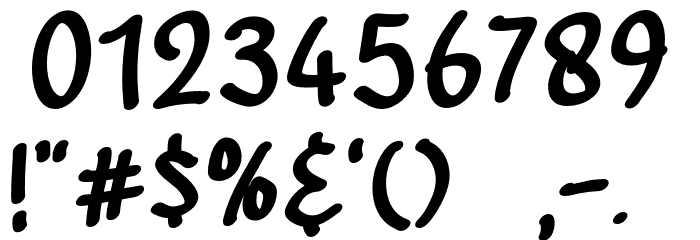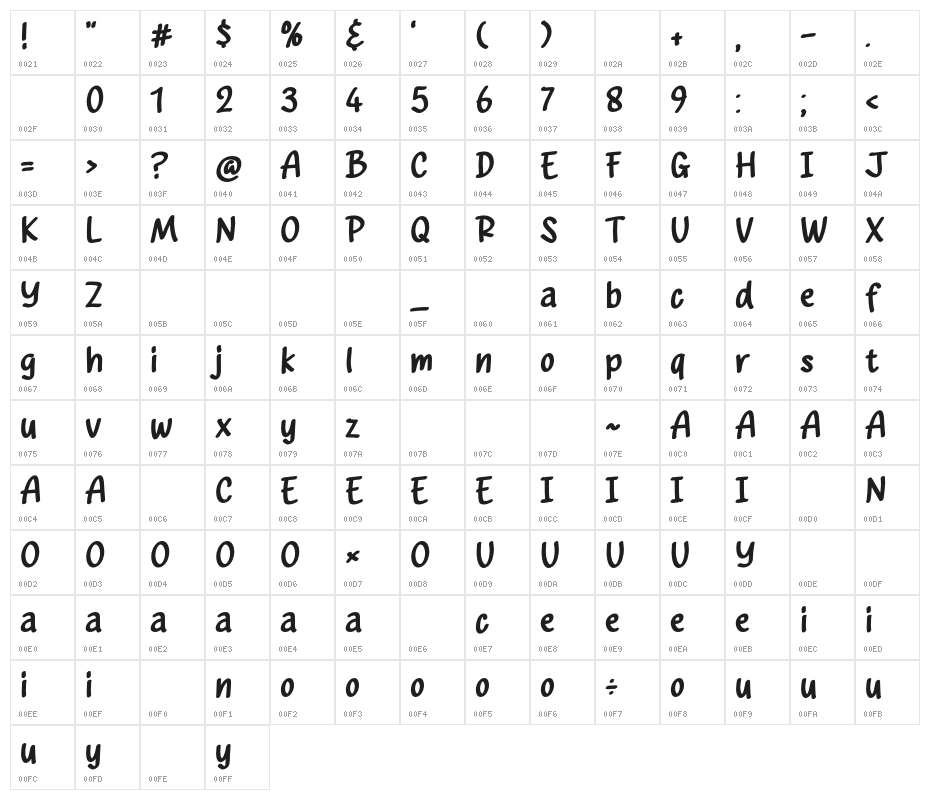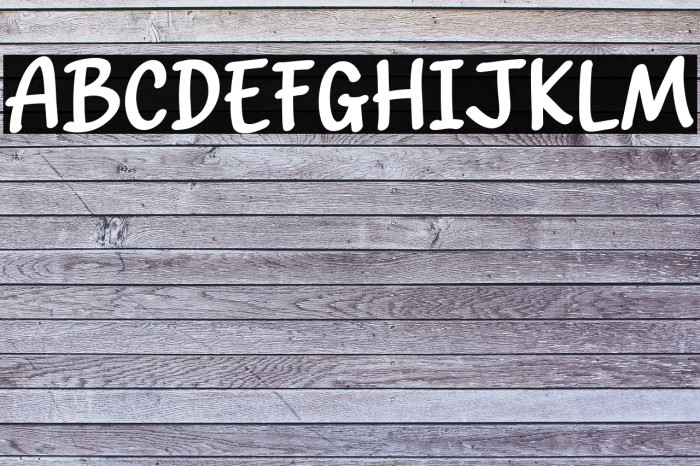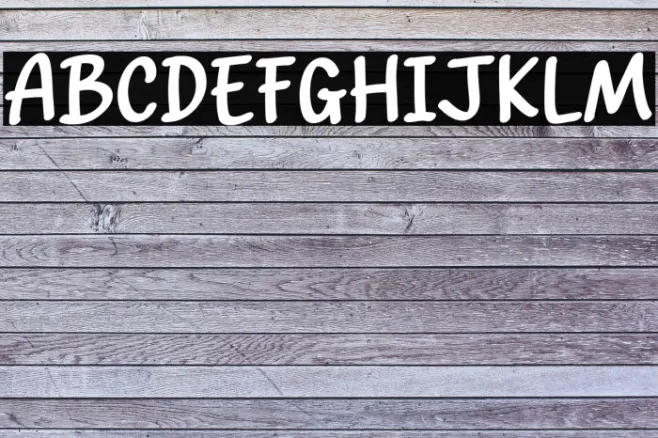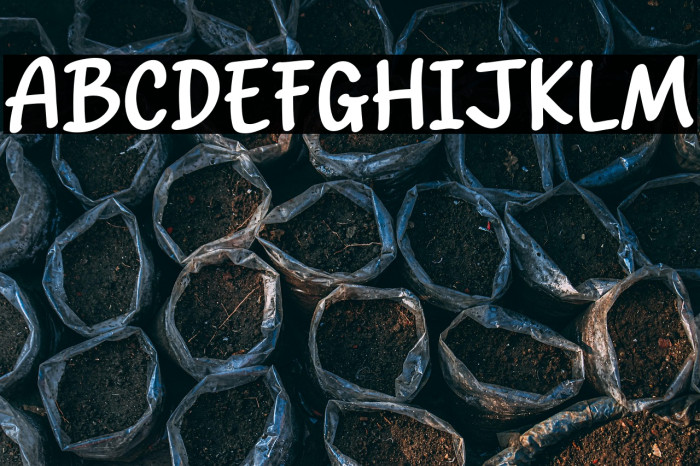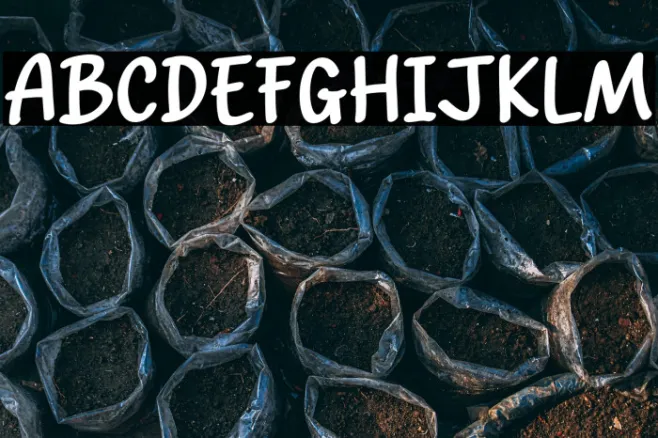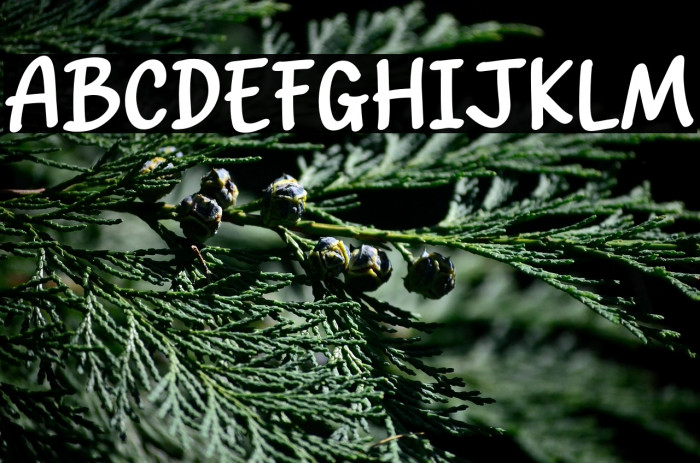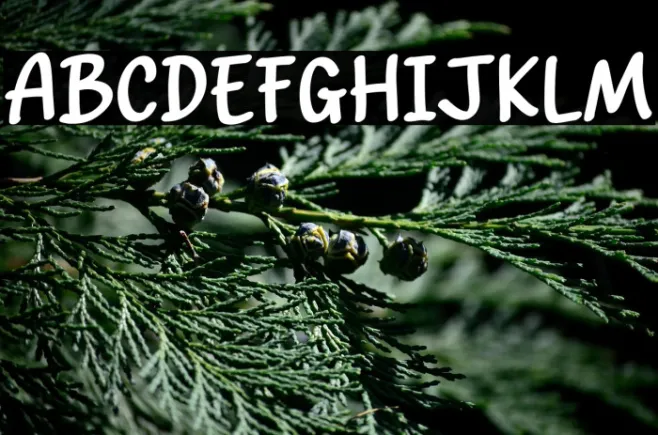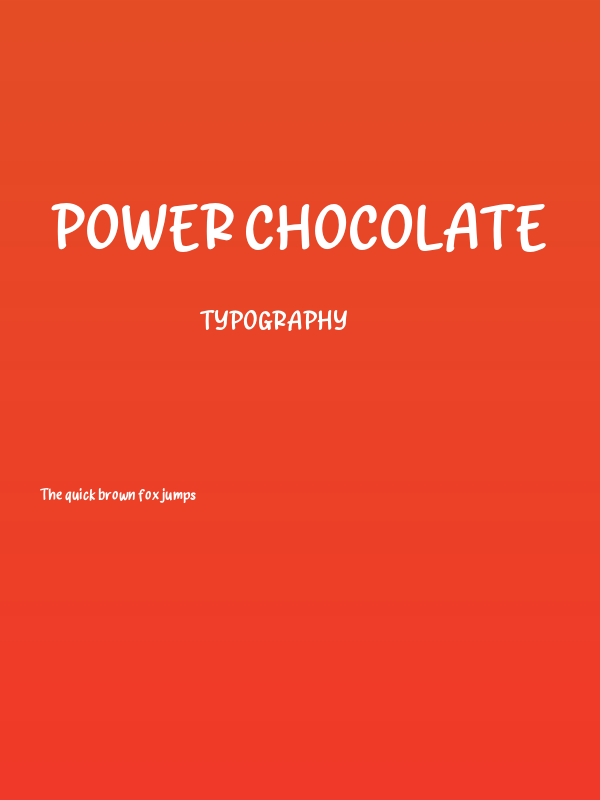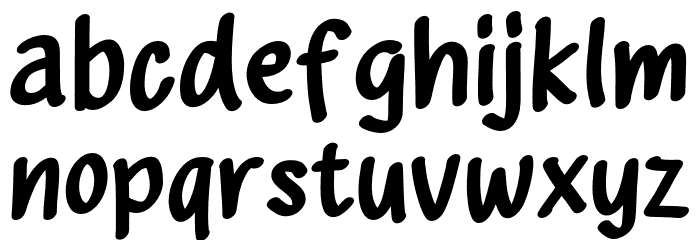
Power Chocolate Font
Power Chocolate Description
This font features a playful and bold handwritten style, characterized by its rounded and slightly irregular letterforms. The strokes are thick and consistent, giving it a strong presence that is both friendly and approachable. The uppercase and lowercase letters maintain a cohesive look, with a slight slant that adds to its casual charm. Numbers and special characters are designed with the same playful aesthetic, making the font versatile for various uses. Its boldness ensures readability while the handwritten style adds a personal touch.
| Overall Style | Playful, Casual |
| Proposed Projects | Ideal for children's books, playful branding, greeting cards, and casual social media graphics. |